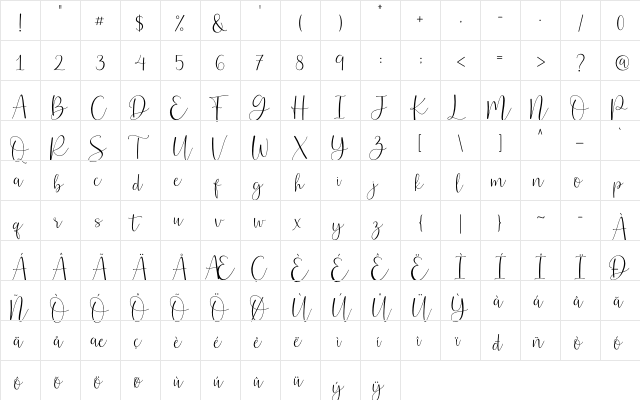
Belly Betty Regular
| Designer | Ef Studio |
Design Context for Belly Betty Typeface
Belly Betty is a composed and adaptable typeface that performs quietly and consistently across a wide range of design contexts.